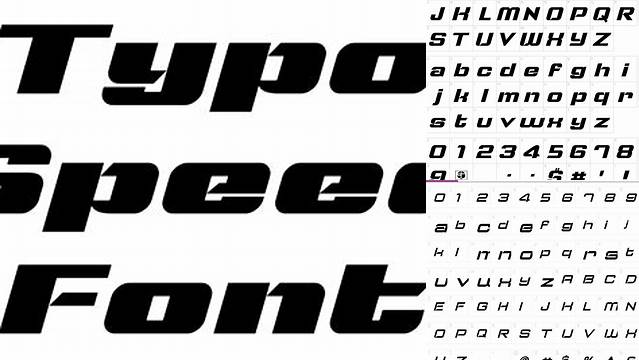
Typo Speed Font: Free Download & Usage Guide
Hey guys! Ever stumbled upon a font that just screams speed and dynamism? Well, you're in the right place! In this article, we're diving deep into the world of Typo Speed Font, a typeface designed to inject energy and a sense of velocity into your projects. We'll explore what makes this font so unique, where you can snag it for free, and how to use it effectively to rev up your designs. So, buckle up and let's get started!
What is Typo Speed Font?
Before we get into the nitty-gritty of downloading, let's talk about what Typo Speed Font actually is. This font is characterized by its sleek lines, forward-leaning stance, and overall feeling of motion. It’s the kind of font that looks like it’s already in fast forward. The design often incorporates sharp angles and elongated strokes, giving it a very modern and almost futuristic vibe. Imagine the text equivalent of a sports car – that’s Typo Speed Font in a nutshell. Its design lends itself perfectly to projects where you want to convey action, speed, or technological advancement. Think about racing games, tech startups, or even the branding for an energy drink – this font fits right in. But it’s not just about speed; there’s a certain sophistication to it as well. The clean lines and balanced letterforms mean it can also be used in contexts where you want to project a sense of cutting-edge innovation without sacrificing readability. This versatility makes it a favorite among designers who need a font that can be both bold and refined. The font often includes variations in weight, from light to bold, allowing you to further customize its appearance to fit your specific needs. You might use a lighter weight for body text (if you’re feeling adventurous!) or a heavier weight for headlines and titles to really make an impact. In terms of stylistic choices, some versions of Typo Speed Font incorporate subtle details like rounded corners or stylized serifs, adding to its overall appeal. The key takeaway here is that Typo Speed Font isn't just a single entity; it's more like a family of fonts, each with its own unique personality but all sharing that core DNA of speed and forward motion. Understanding this variety is crucial because it allows you to select the version that best matches your project’s needs. Whether you're designing a logo, creating a website, or putting together a presentation, the right Typo Speed Font can add that extra spark of energy and dynamism that makes your work stand out. So, now that we know what makes this font so special, let's talk about where you can get your hands on it without spending a dime.
How to Use Typo Speed Font Effectively
Alright, you've got Typo Speed Font downloaded and installed – awesome! But having the right tool is only half the battle; you need to know how to wield it effectively. Let's dive into some tips and tricks for using Typo Speed Font in your design projects. First and foremost, consider the context. This font is all about speed, energy, and modernity, so it’s going to shine in projects where those qualities are desired. Think about tech startups, sports brands, automotive designs, or anything that needs to convey a sense of forward motion. It might not be the best choice for a cozy, rustic-themed project, but for something sleek and dynamic, it’s a perfect fit. When it comes to typography, hierarchy is key. Typo Speed Font is often best used for headlines, titles, and logos, where its unique character can really stand out. Using it for large blocks of body text can be a bit overwhelming, as its distinctive style can become tiring to read over long stretches. Instead, consider pairing it with a more neutral and legible font for body text. A classic sans-serif or even a clean serif font can provide a nice contrast and ensure your content remains readable. Think of Typo Speed Font as the star of the show and your body text font as the supporting cast – they should complement each other, not compete. Another important aspect is the weight and size of the font. Experiment with different weights (light, regular, bold) to see what works best for your design. A heavier weight will make a bolder statement, while a lighter weight can add a touch of elegance. Similarly, the size of the font can dramatically impact its effectiveness. A large, impactful headline in Typo Speed Font can grab attention and set the tone for your design. Color also plays a crucial role. Consider using colors that complement the font’s energetic vibe, such as bright blues, reds, or oranges. Alternatively, you can use contrasting colors to create a striking visual effect. Imagine Typo Speed Font in a vibrant blue against a dark background – it screams speed and innovation! Kerning and letter spacing are your friends when working with any font, and Typo Speed Font is no exception. Pay attention to the spacing between letters to ensure readability and visual appeal. Tightening the kerning can sometimes enhance the font’s sleek appearance, while adding a bit of letter spacing can give it a more airy and modern feel. Finally, don’t be afraid to experiment! Typography is an art, and the best way to learn is by trying different things and seeing what works. Play around with different combinations of fonts, colors, and sizes until you achieve the desired effect. Remember, the goal is to create a design that is both visually appealing and communicates your message effectively. With Typo Speed Font in your toolkit, you have a powerful asset for adding energy and dynamism to your projects. So go out there and create something amazing!
Examples of Typo Speed Font in Design
Now that we've covered the basics of Typo Speed Font and how to use it, let's take a look at some real-world examples of how it can be used effectively in design. Seeing the font in action can give you a better sense of its capabilities and inspire you to incorporate it into your own projects. One common application for Typo Speed Font is in logo design. Its sleek and modern appearance makes it a great choice for companies that want to project a sense of innovation and speed. Think about tech startups, sports brands, or automotive companies – Typo Speed Font can help convey the dynamism and forward-thinking nature of these businesses. Imagine a logo for a fitness app that uses Typo Speed Font in a bold, vibrant color. The font’s energetic style perfectly complements the app’s focus on movement and progress. Similarly, a technology company might use a more refined version of the font in a minimalist design to communicate sophistication and cutting-edge technology. Another area where Typo Speed Font shines is in website design. Its eye-catching nature makes it ideal for headlines, banners, and calls to action. A website for a gaming company, for example, could use Typo Speed Font to create a sense of excitement and immersion. The font’s sharp angles and forward-leaning stance perfectly align with the fast-paced, action-oriented nature of gaming. When used in web design, it’s important to consider readability. While Typo Speed Font is great for headlines and titles, it’s not always the best choice for large blocks of text. Pair it with a more legible font for body text to ensure your content is easy to read. Graphic design projects, such as posters, flyers, and brochures, are another excellent canvas for Typo Speed Font. Its bold and dynamic style can help your designs stand out and grab attention. Consider using it in promotional materials for events, products, or services that want to convey a sense of energy and excitement. A poster for a music festival, for example, could use Typo Speed Font to create a visually striking and memorable design. The font’s modern aesthetic pairs well with bold colors and dynamic imagery, making it a powerful tool for capturing the audience’s attention. In the realm of branding, Typo Speed Font can be a valuable asset for companies looking to establish a strong and modern identity. Its unique character helps create a distinctive visual presence that sets a brand apart from the competition. A company that uses Typo Speed Font in its logo and marketing materials can effectively communicate its values and personality to its target audience. Think about a brand that wants to be perceived as innovative, fast-paced, and forward-thinking – Typo Speed Font can help reinforce that message. These are just a few examples of how Typo Speed Font can be used in design. The possibilities are endless, and with a little creativity, you can find even more ways to incorporate it into your projects. Remember to consider the context, experiment with different variations, and pair it with other fonts and design elements to achieve the desired effect. With its energetic and modern style, Typo Speed Font can be a powerful tool for creating visually stunning and impactful designs.
So, there you have it, guys! We've journeyed through the fast-paced world of Typo Speed Font, exploring its unique characteristics, where to download it for free, how to use it effectively, and seen some inspiring examples of it in action. This font is a fantastic tool for injecting energy, dynamism, and a modern edge into your designs. Whether you're crafting a logo, designing a website, or creating marketing materials, Typo Speed Font can help you make a bold statement. Remember to consider the context of your project and use the font strategically to achieve the desired effect. Experiment with different weights, sizes, and colors, and don't be afraid to pair it with other fonts to create a balanced and visually appealing design. With its sleek lines and forward-leaning stance, Typo Speed Font is perfect for projects that need to convey a sense of speed, innovation, and excitement. Think tech startups, sports brands, automotive designs, and anything that wants to project a modern and dynamic image. But don't limit yourself to these categories – with a little creativity, you can find even more ways to incorporate this font into your designs. And remember, while Typo Speed Font is often best used for headlines and titles, it can also be used in other design elements, such as logos and banners. Just be mindful of readability and make sure to pair it with a more legible font for body text. By now, you should have a solid understanding of Typo Speed Font and how to use it effectively. So go ahead, download it for free, and start experimenting with it in your projects. Let your creativity flow and see how this dynamic font can help you create stunning designs that stand out from the crowd. Thanks for joining me on this typographic adventure, and happy designing!